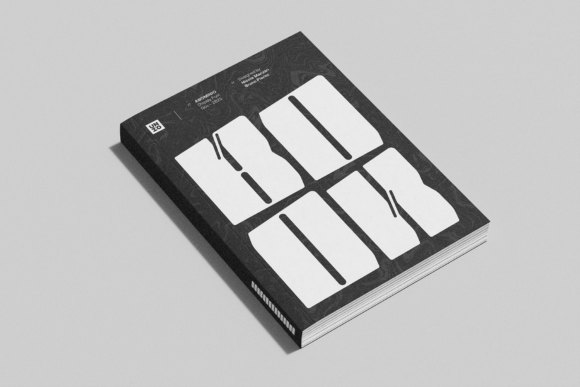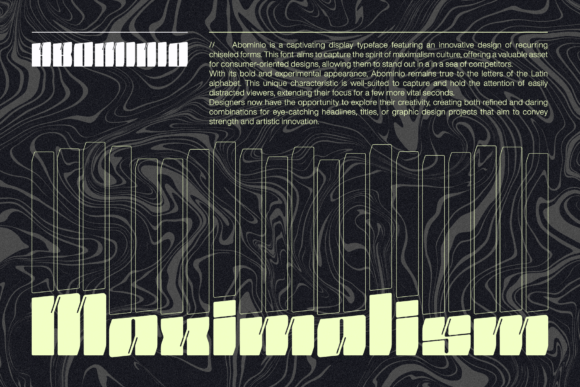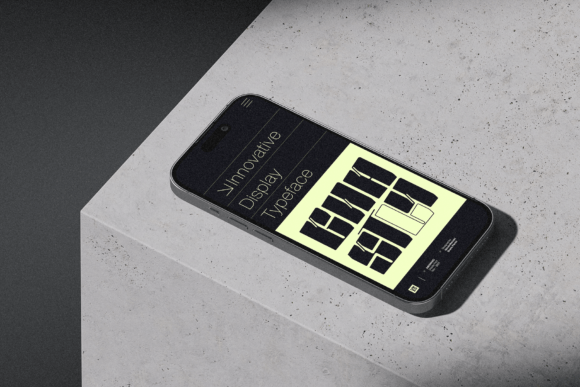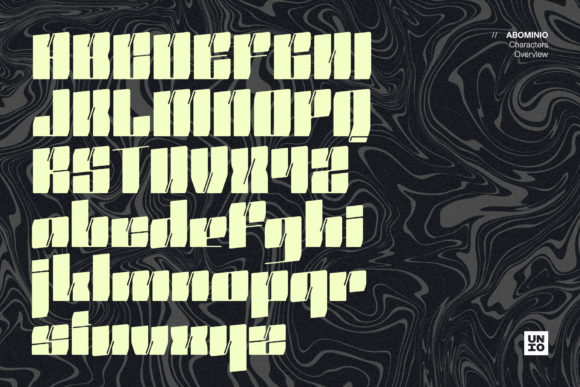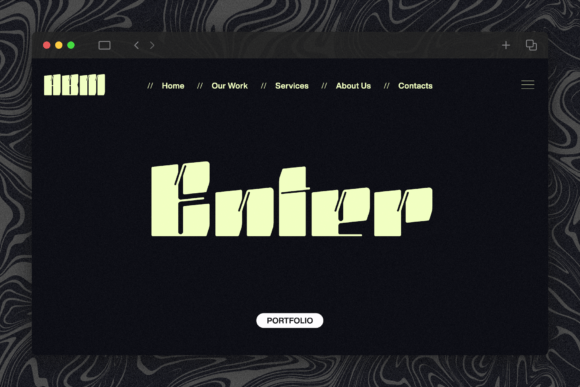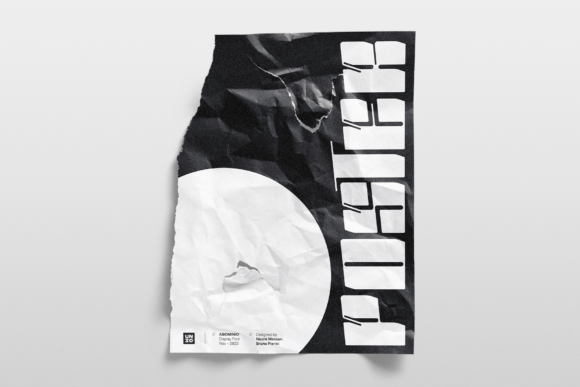
Introduction to Abominio Font
Abominio is a captivating display typeface featuring an innovative design of recurring chiseled forms.
This font aims to capture the spirit of maximalism culture, offering a valuable asset for consumer-oriented designs, allowing them to stand out in a sea of competitors With its bold and experimental appearance, Abominio remains true to the letters of the Latin alphabet.
Key Features of Abominio Font